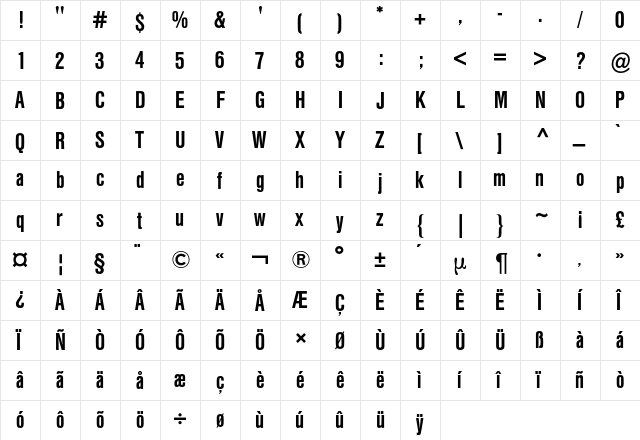
Helvetica Condensed BQ Regular
Design Context for Helvetica Condensed BQ Typeface
Helvetica Condensed BQ takes a measured approach to typography — its balanced proportions and neutral character make it a reliable workhorse for both digital and print work. Its narrow stance lets it pack a punch even in space-constrained designs.